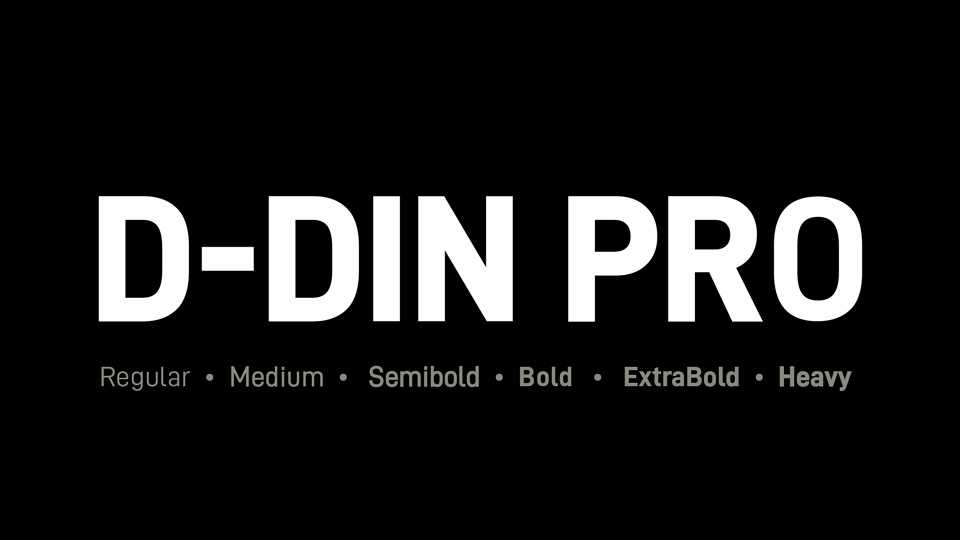
Download D-DIN PRO typeface, a versatile sans serif font family in six weights inspired by D-DIN type. The classic design is based on geometric shapes and is intended for use on traffic signs and technical documentation.
Designer: CyberFei